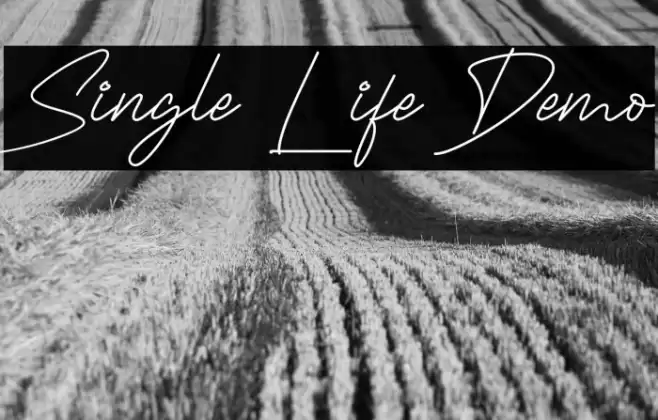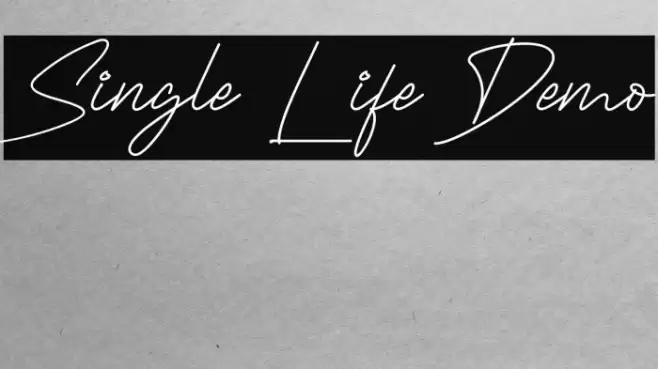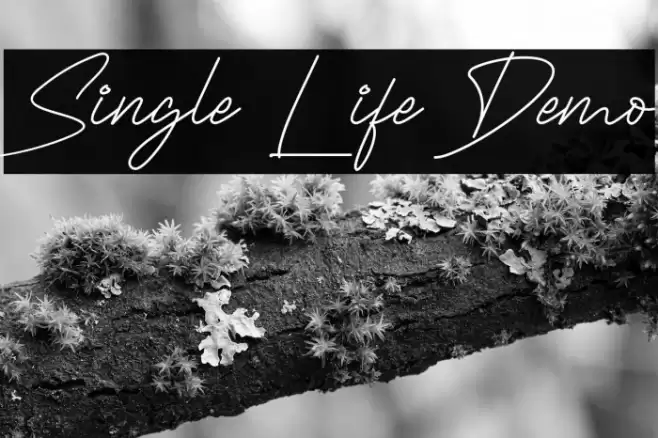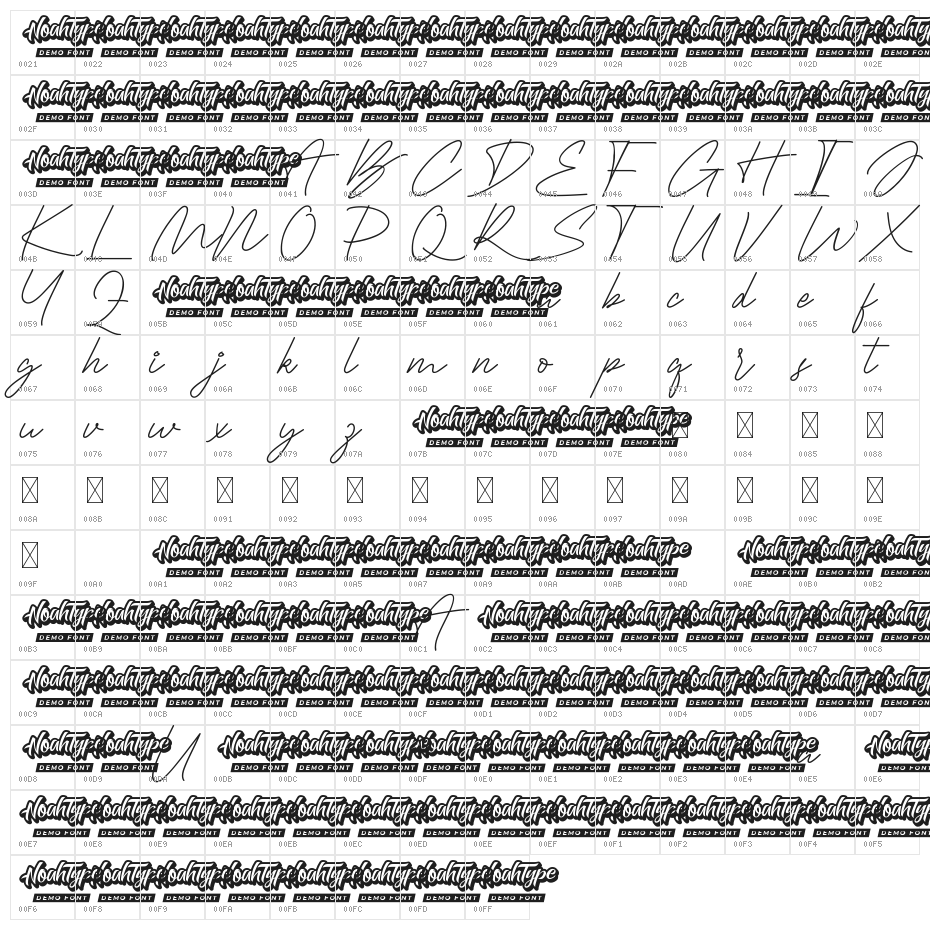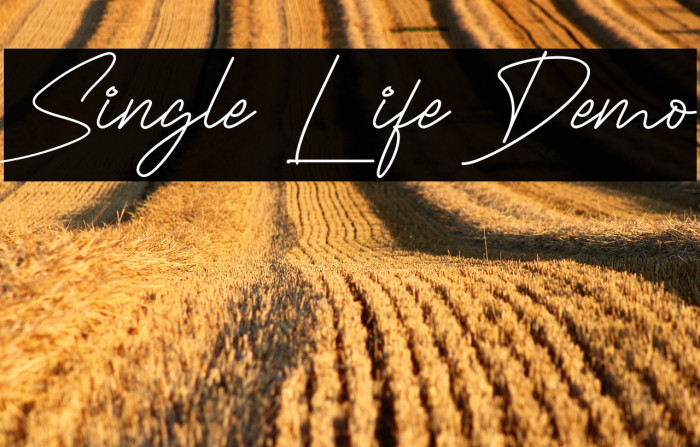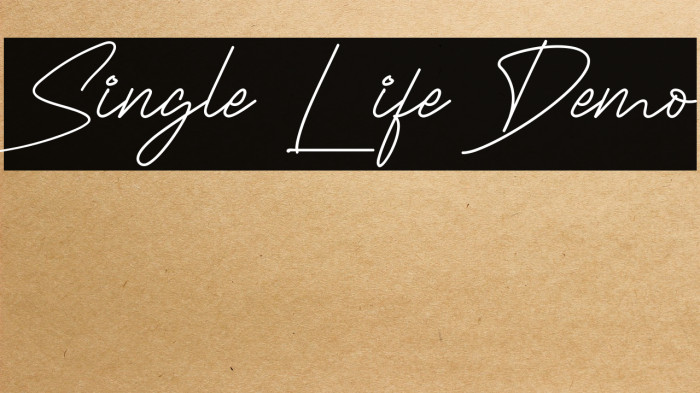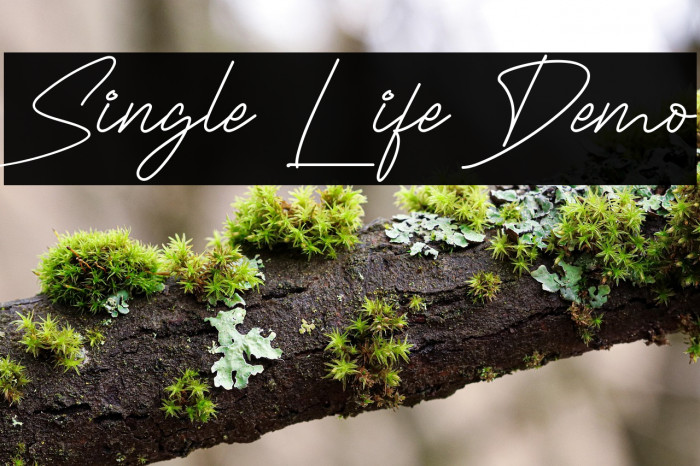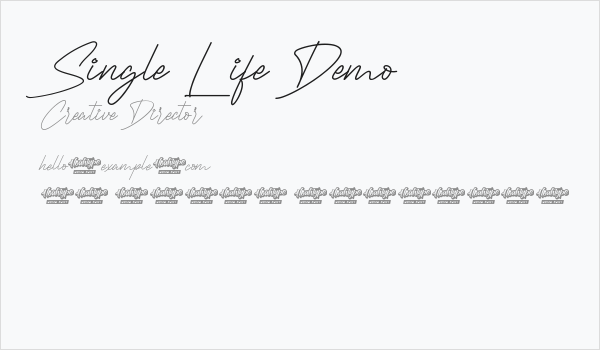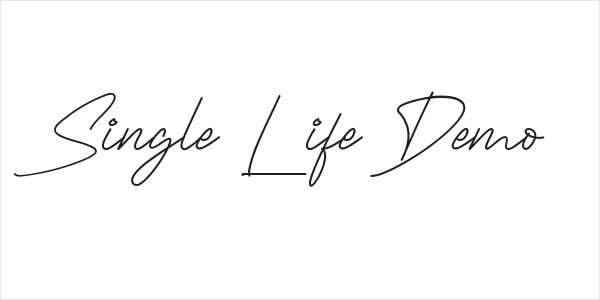
Single Life Demo Font
Single Life Demo Description
This font features a flowing, cursive style that mimics elegant handwriting. The uppercase letters are tall and slender, with graceful loops and curves that give a sense of fluidity and motion. The lowercase letters are similarly styled, maintaining a consistent slant and connected strokes, which enhances the handwritten aesthetic. The font has a delicate and sophisticated appearance, making it suitable for projects that require a personal touch. The characters are well-spaced, allowing for readability while maintaining the script's artistic flair.
A flowing, cursive script with elegant, connected strokes from Uncategorized fonts.
- Proposed Projects: Ideal for wedding invitations, greeting cards, personal branding, and elegant logos.
- Overall Style: Elegant, Handwritten
- Use Case: Logos, Invitations, Personal Branding